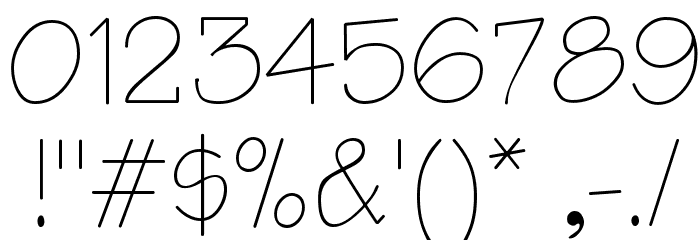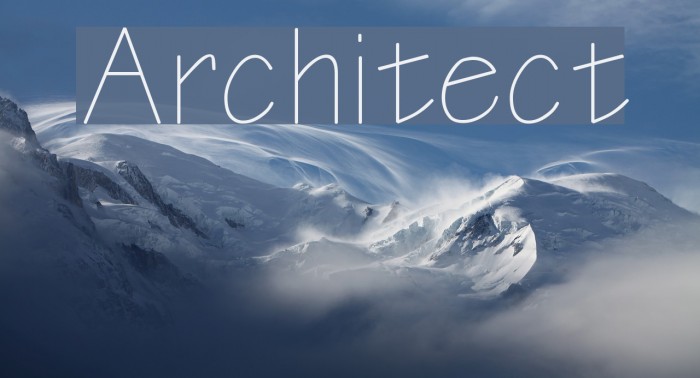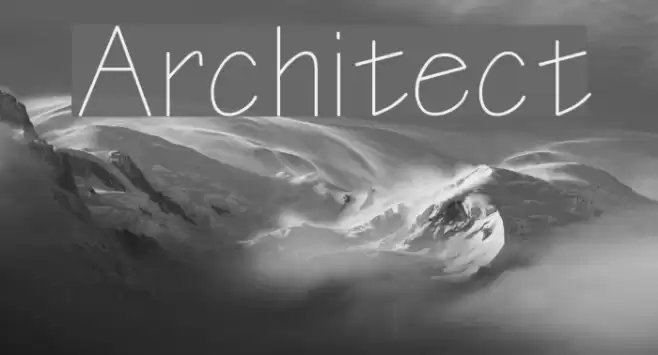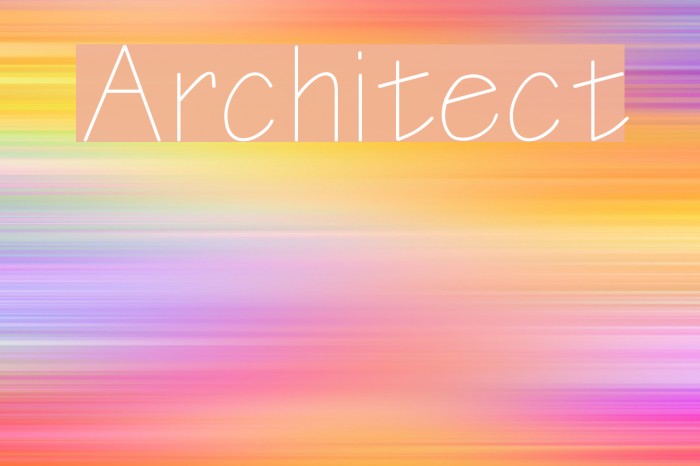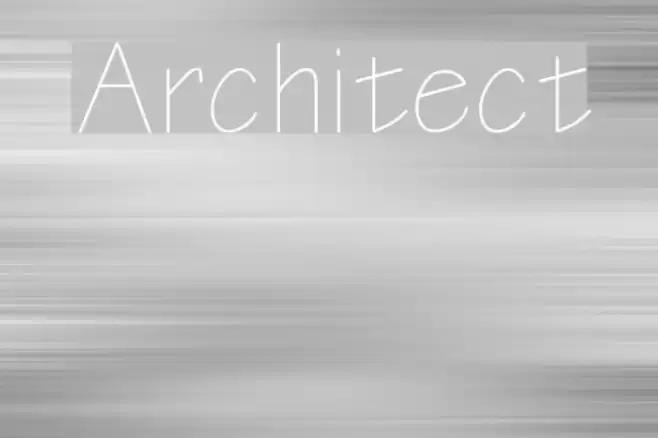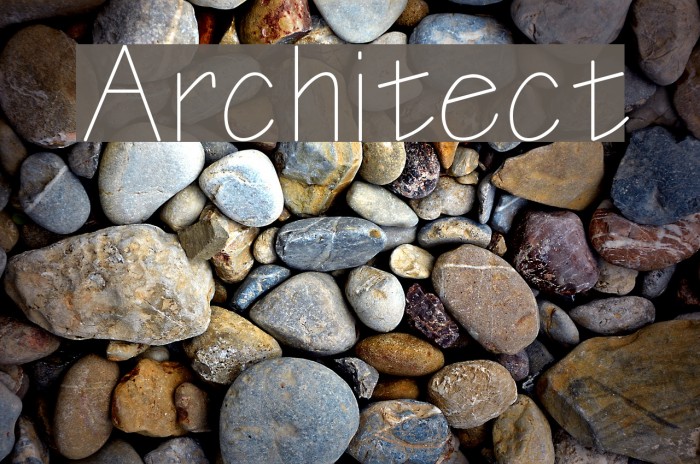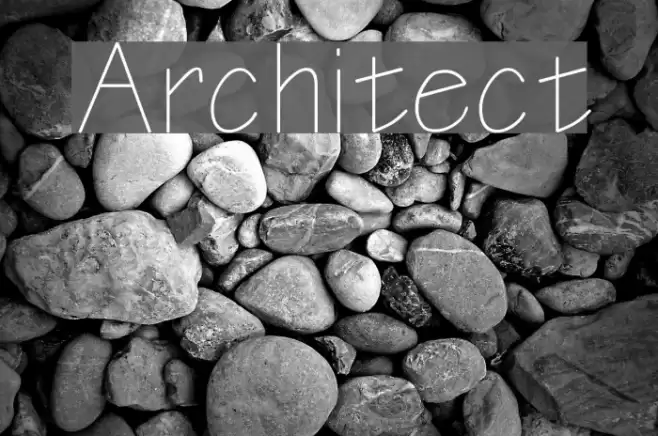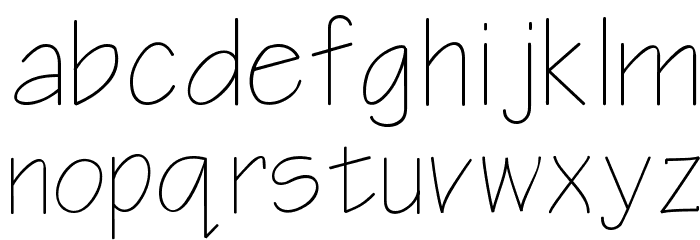
Architect Font
Architect Description
This font features a clean and precise design, reminiscent of architectural blueprints. The characters are constructed with thin, uniform lines that give it a technical and modern appearance. The uppercase letters are tall and slightly narrow, while the lowercase letters maintain a consistent height, contributing to a harmonious and balanced look. The numerals are clear and legible, matching the overall aesthetic. Special characters are designed with the same attention to detail, ensuring they integrate seamlessly with the rest of the font. This style is ideal for projects that require a professional and contemporary feel.
| Use Case | Headlines, Technical documents, Branding |
| Proposed Projects | Ideal for architectural presentations, technical drawings, modern branding, and minimalist design projects. |